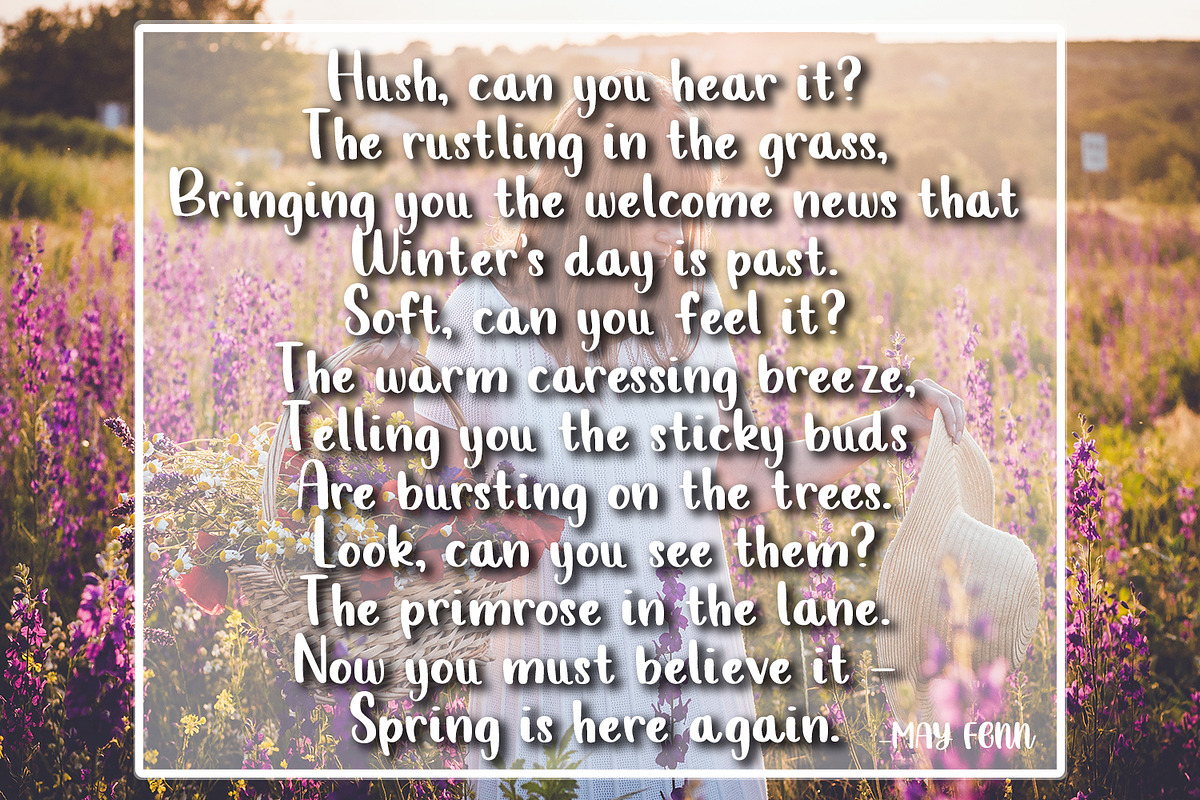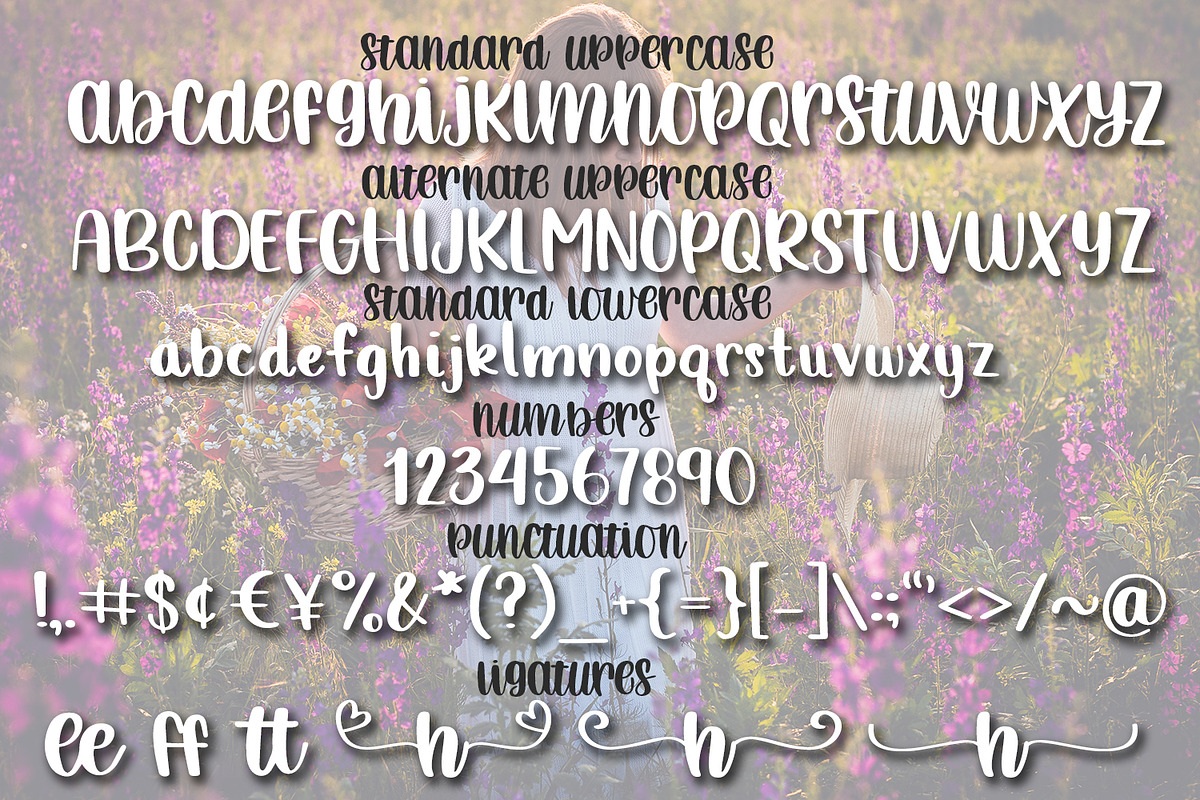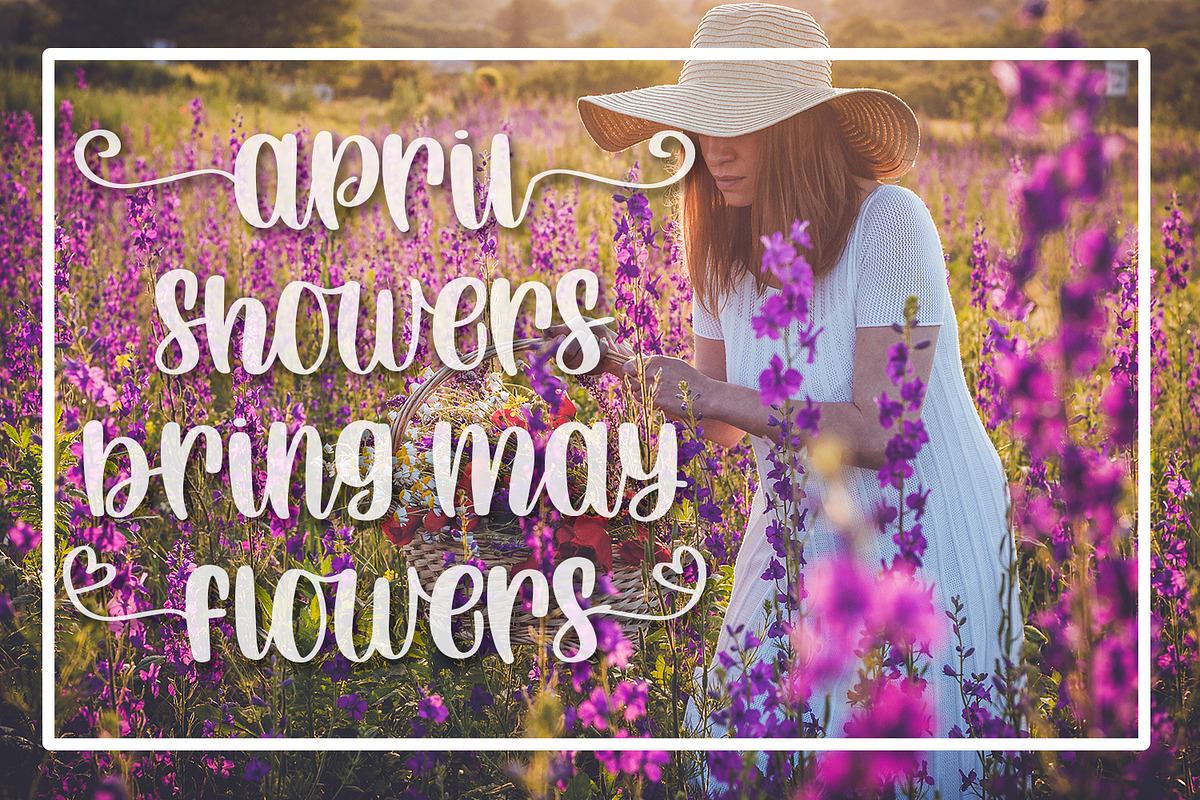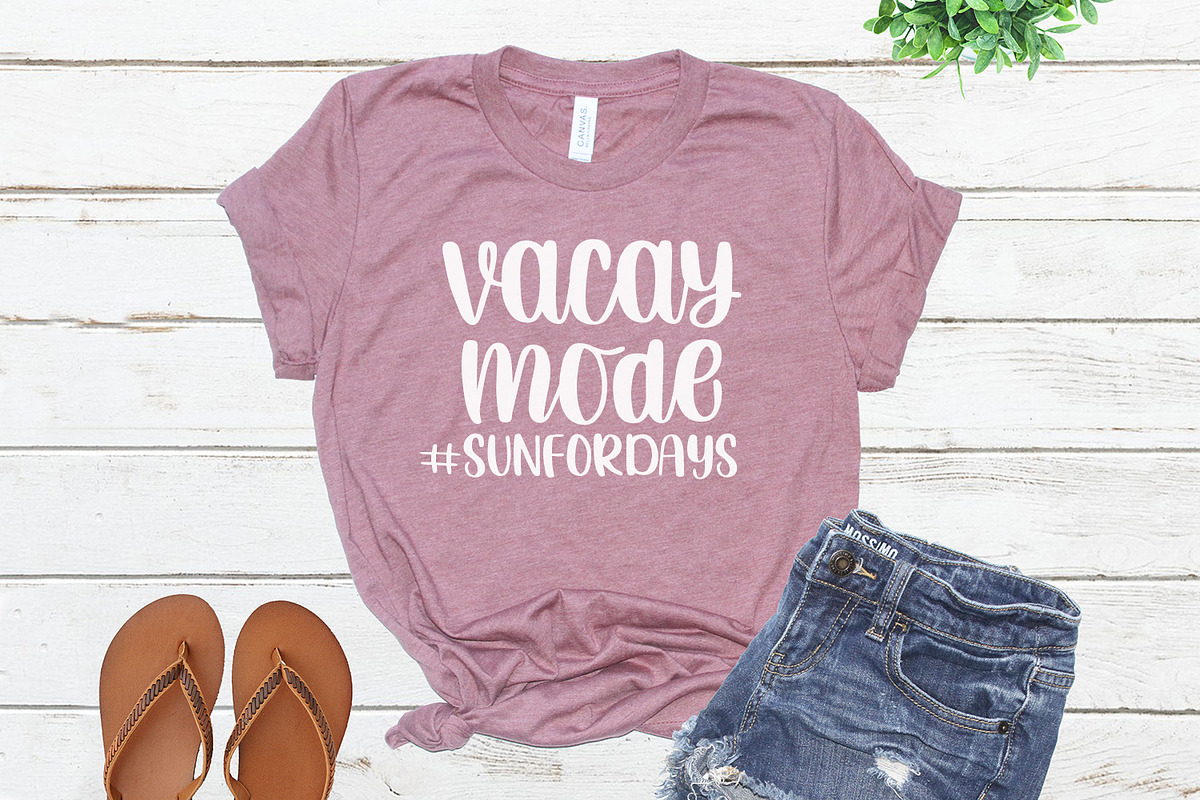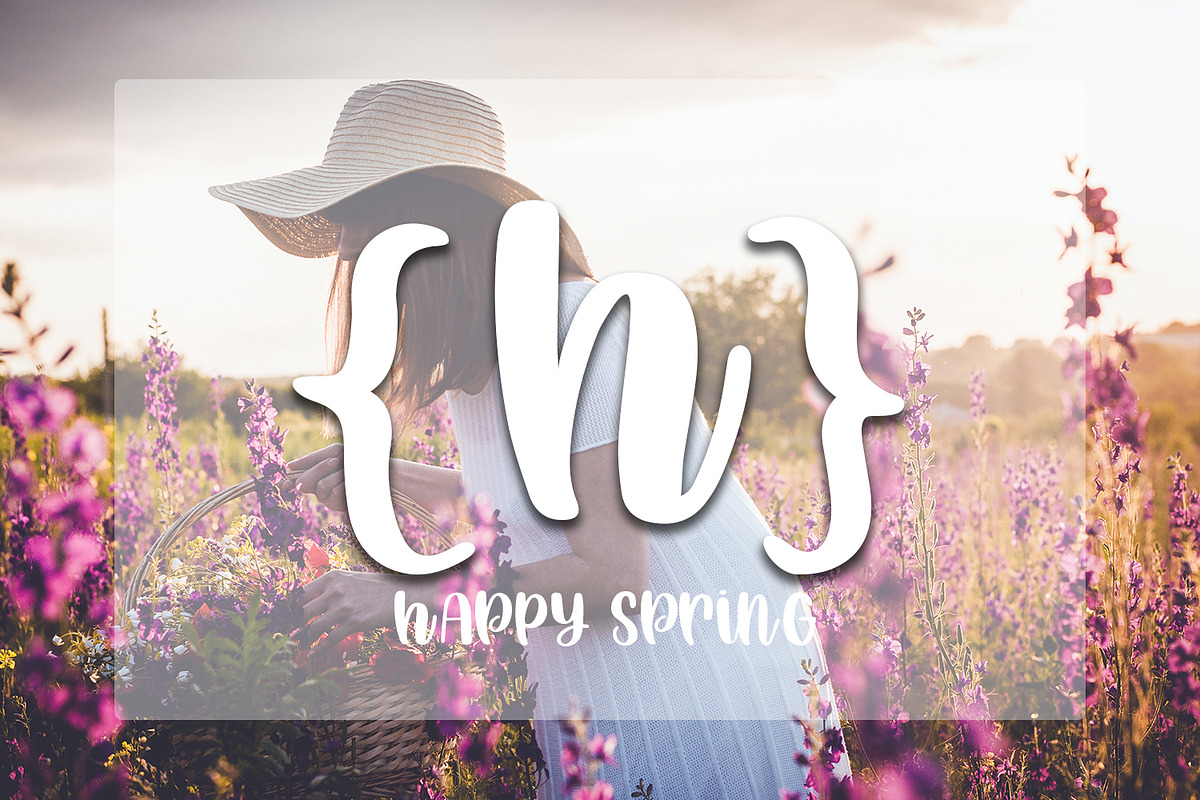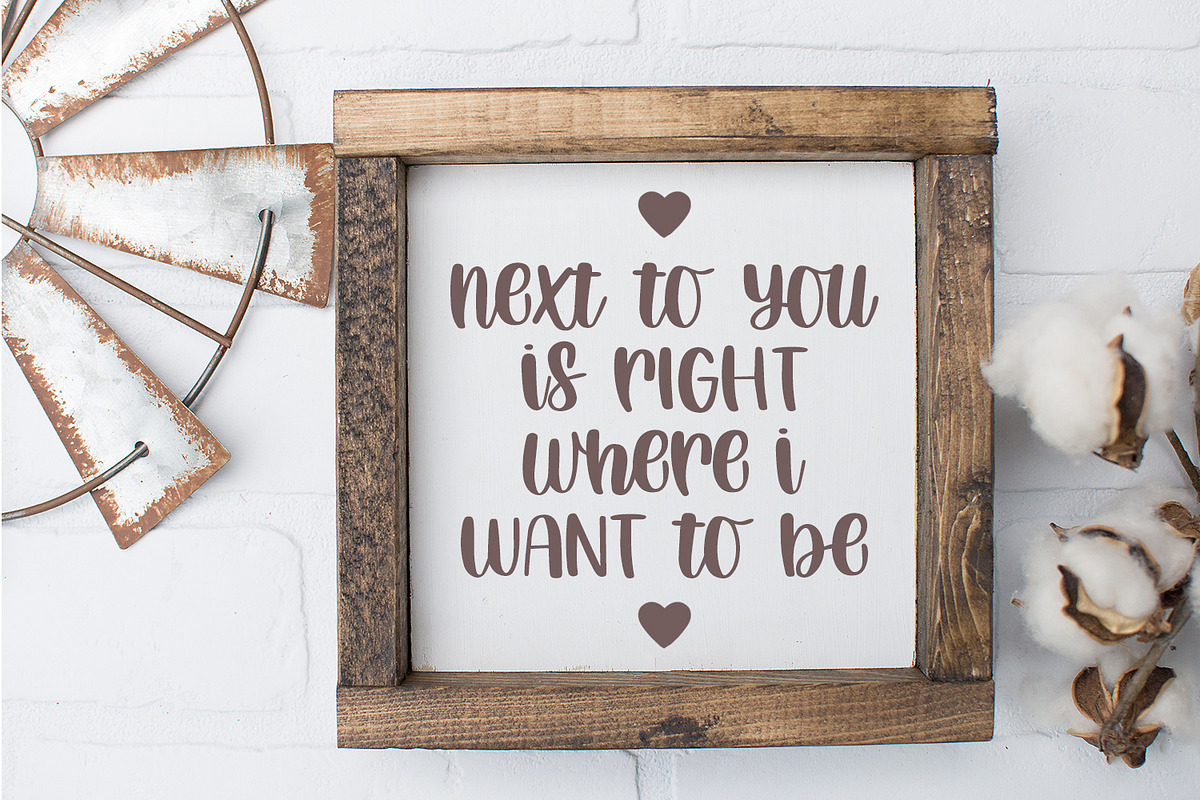
Happy Spring - Hand Lettered Font
'Happy Spring' The characteristics of this font give off a unique hand lettered feel that will make your work enticing to view. 'Happy Spring' is a pretty script font that is great for crafting with. Minimal nodes makes it smooth and wonderful for cutting and weeding. The Uppercase font makes designing a breeze! Helps esthetically make your designs look proportionate and easy on the eye to read. Purchase today and start making something fabulous with my hand lettered 'Happy Spring' font!
This font comes with 2 uppercase fonts and 1 lowercase font. This blend of fonts make it perfect for crafting and looks awesome on T-shirts, mugs, cards and so much more! Comes with Uppercase (2), Lowercase (1), Numeral, Punctuation, Accents, discretionary ligatures and a few glyphs for "tail" ends/swashes.
- Comes with Uppercase (2), Lowercase (1), Numeral, Punctuation, Accents, discretionary ligatures and a few glyphs for "tail" ends/swashes.
- The Uppercase font makes designing a breeze!